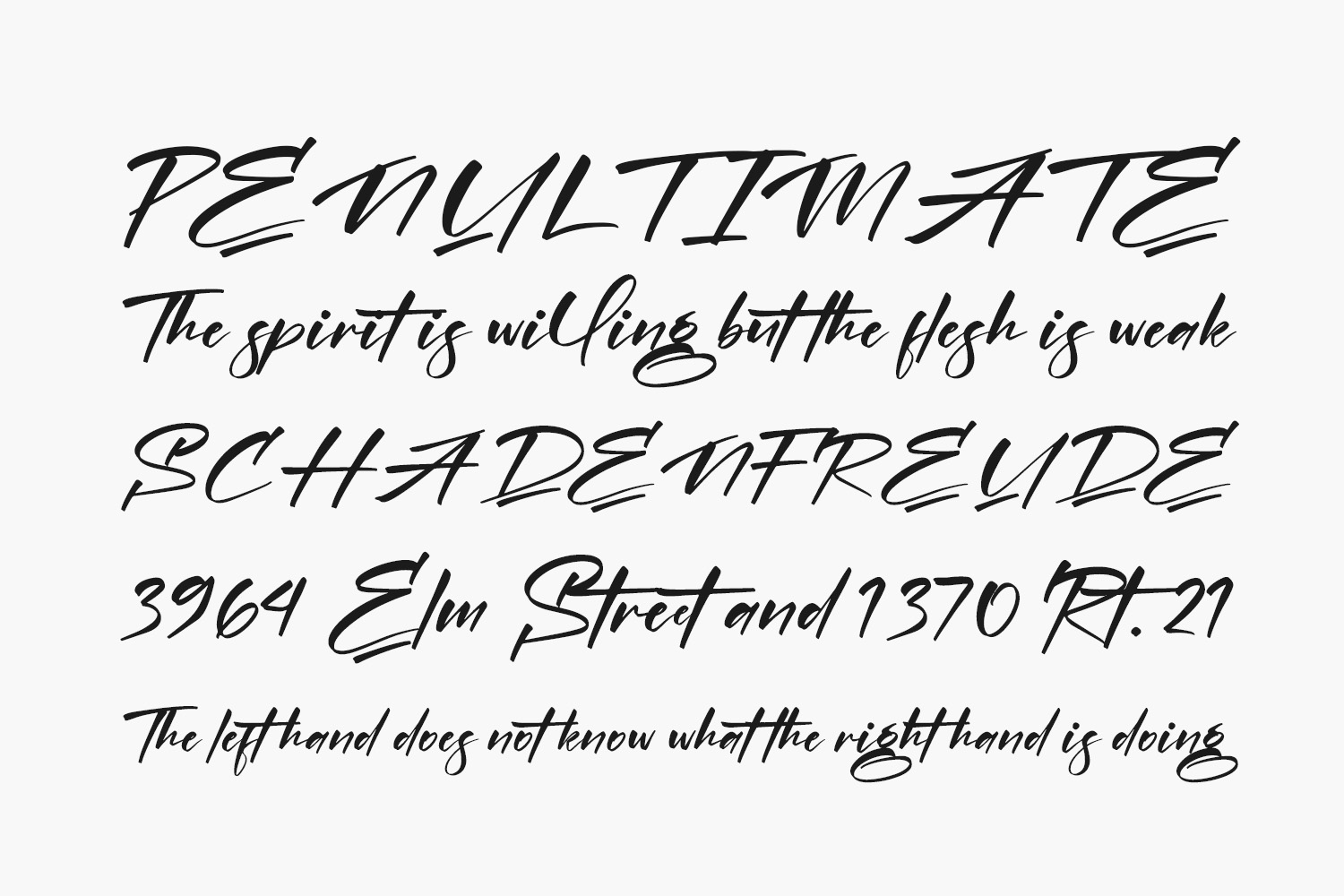
Amigate Endgame Free Font Family is a gorgeous and bold handwritten font, crafted to give your headlines and logotype projects a stylish touch. This font reads as strong, confident, and dynamic and can add tons of trendy character to your designs. Amigate Endgame Free Font Family was designed by Perspectype Studio and is free for personal use only. Please purchase the full version for commercial use.
Amigate Endgame Regular The quick brown fox jumps over the lazy dog
Amigate Endgame Italic The quick brown fox jumps over the lazy dog